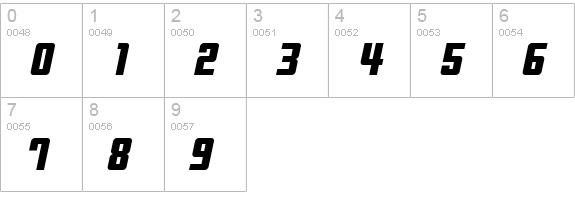
ParegosSpeed Font Details
Introducing ParegosSpeed, a sleek and dynamic font that effortlessly captures the essence of speed and motion. This font is perfect for projects that require a touch of modernity and energy, whether it be for a logo, a poster, or a website design. ParegosSpeed is designed with precision and attention to detail, ensuring that every letter and character is crafted to convey a sense of speed and agility. Its bold and striking appearance demands attention, making it the ideal choice for any project where impact and visual appeal are paramount. One of the standout features of ParegosSpeed is that it is available free of charge. Yes, you read that right – this incredibly versatile and captivating font can be yours at no cost. Simply head over to FontsMarket.com, where you can conveniently and freely download ParegosSpeed and start incorporating it into your designs today. Whether you are a professional designer or a hobbyist, ParegosSpeed offers endless possibilities to elevate your creative endeavors. Its unique and eye-catching design will undoubtedly leave a lasting impression on your audience, making your work stand out from the crowd. So why wait? Embrace the speed and power of ParegosSpeed and take your design projects to new heights. Download it for free now at FontsMarket.com and experience the thrill of this remarkable font.